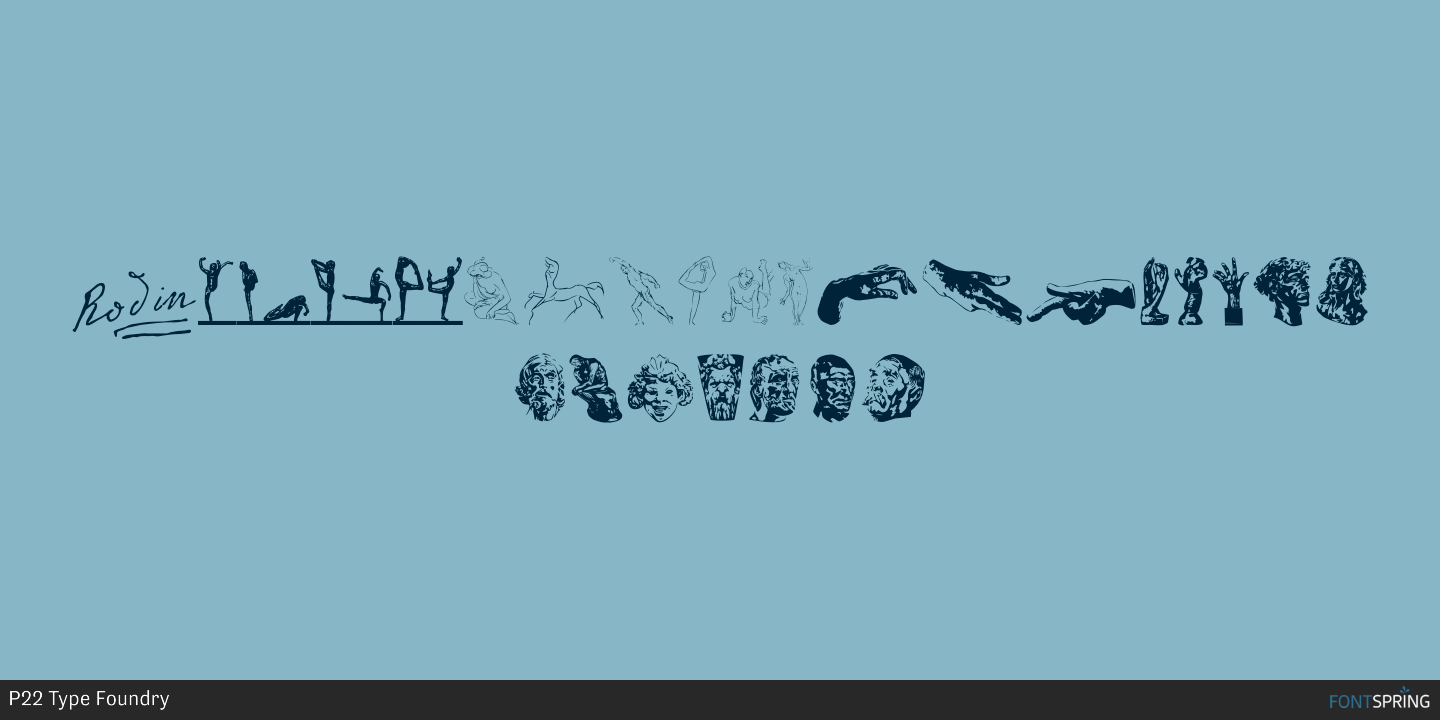
P22 Rodin Extras
P22 Rodin-Michelangelo is a dingbat, historical and script font family. This typeface has four styles and was published by P22 Type Foundry.
The great French sculptor August Rodin was strongly inspired by the Italian sculptor, painter and poet Michelangelo. Created in association with the Philadelphia Museum of Art, this font set is a tribute to the achievements of both extraordinary artists.